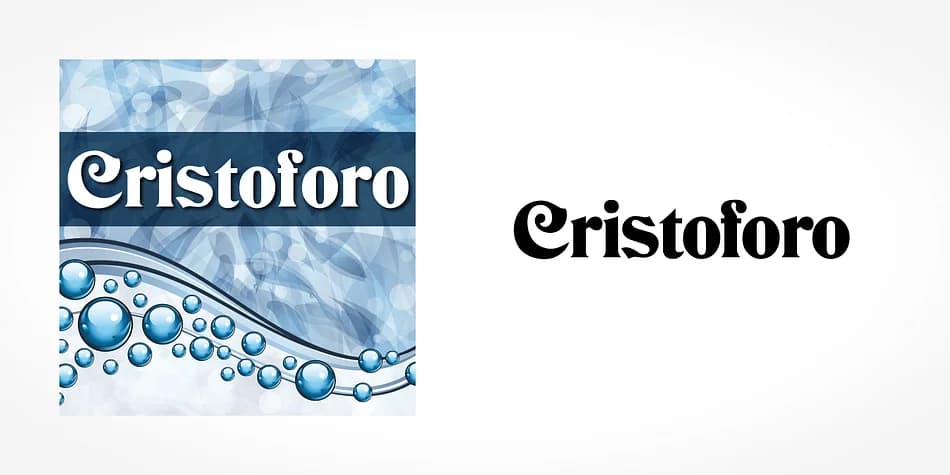
Cristoforo by SoftMaker is a decorative display typeface built on the ornamental flourishes and swoop details characteristic of late 1890s and early 1900s design traditions. This headline-ready font captures the authentic elegance and visual weight of period typography, bringing genuine vintage character to any project seeking strong historical depth or nostalgic visual resonance.
The typeface truly shines in applications where vintage authenticity genuinely matters. Elaborate wedding invitation suites benefit tremendously from its period-appropriate flourishes and formal presence. Apothecary and luxury perfume labels gain the old-world refinement the designs demand. Victorian-era event graphics and historical announcements become far more convincing with its ornamental structure and period proportions. Retro restaurant and bar branding picks up authentic 19th-century sensibility from every letterform. Steampunk aesthetics, art deco revival projects, and other historically inspired design work will find the ornamental elements genuinely useful rather than overwrought or unnecessarily distracting. The typeface carries enough distinctive personality to function as a powerful statement font without overwhelming the page.
Every detail carries the weight you'd recognize from antique printing, with swooping letterforms and ornamental touches that feel genuinely earned rather than purely decorative. Grab Cristoforo from Creative Fabrica and add authentic vintage character to your next project.
Cristoforo Font is a decorative font that shines as a display or heading face. Pair it with a clean sans-serif or serif font for body text β the contrast creates a clear hierarchy while the two styles stay balanced and easy to read.
Cristoforo Font